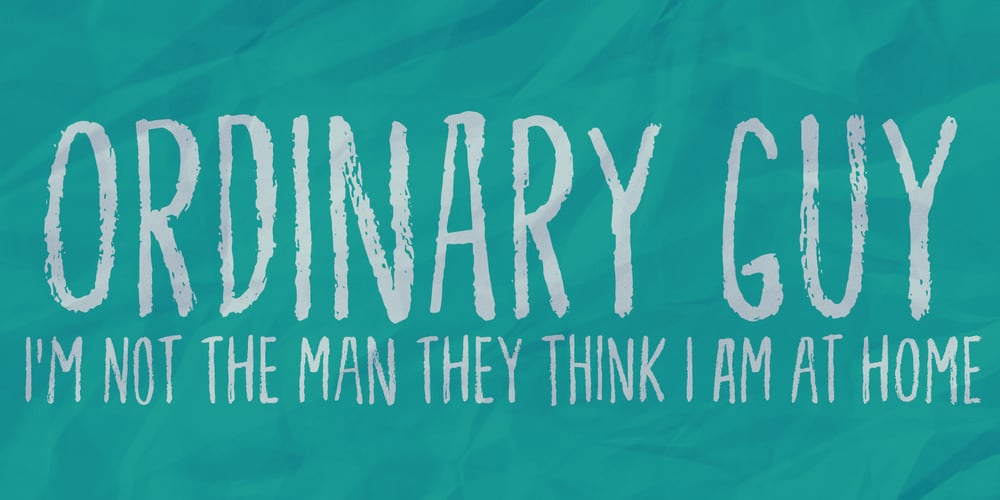
Ordinary Guy
Ordinary Guy font
Ordinary Guy Font Family was designed by Jakob Fischer and published by PizzaDude.dk. Ordinary Guy contains 1 styles and family package options. Just another ordinary brushfont? No! There is more to the picture than meets the eye! Ordinary Guy has 8 different versions of each letter! Just like magic, they cycle as you type! Included is multiple language support!